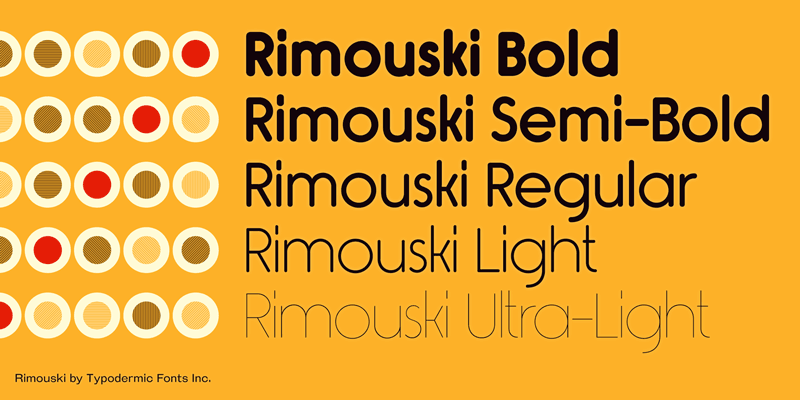
Rimouski is a rounded geometric font family. Use the OpenType "stylistic alternates" feature to unleash a slew of strangely slanted characters. Rimouski Semi-Bold is part of a family of 5 weights and is free for commercial use. License and details are included with the font. If you'd like to embed the font in an application, on a web site or anything else not covered by the license, contact Typodermic Fonts for details. If you're using the font a logo, title, headline or any other sue covered by the license agreement, no payment is required. |